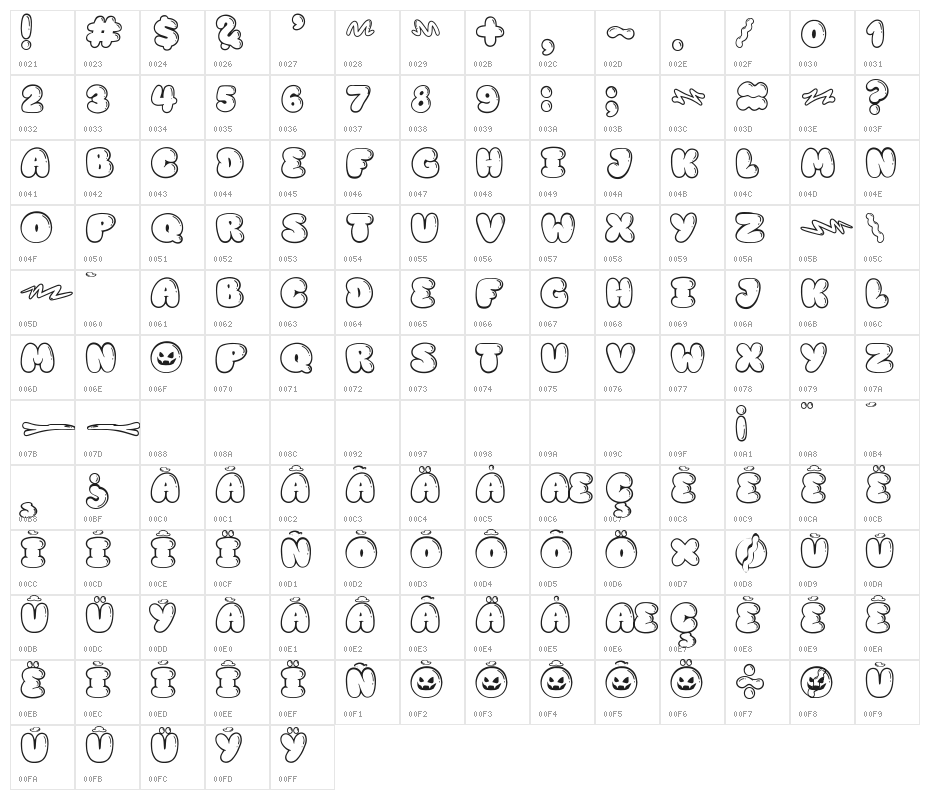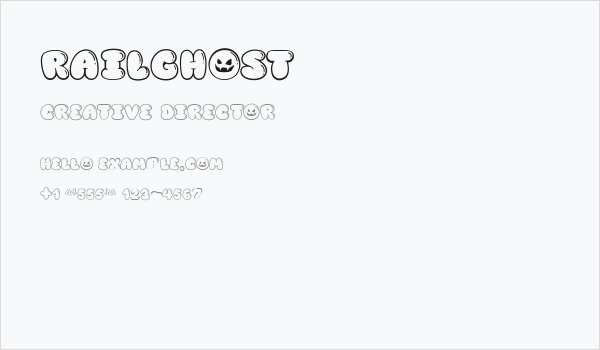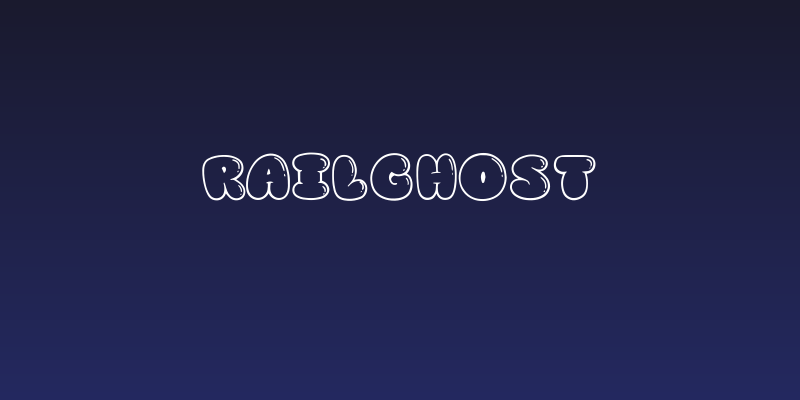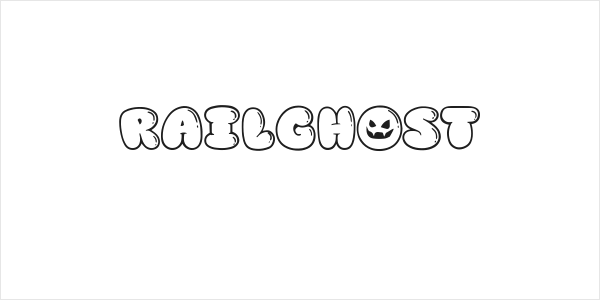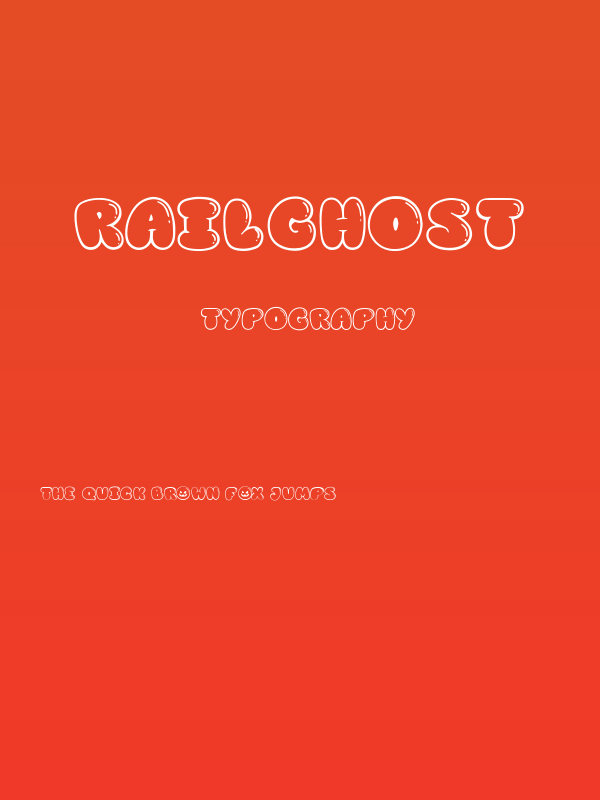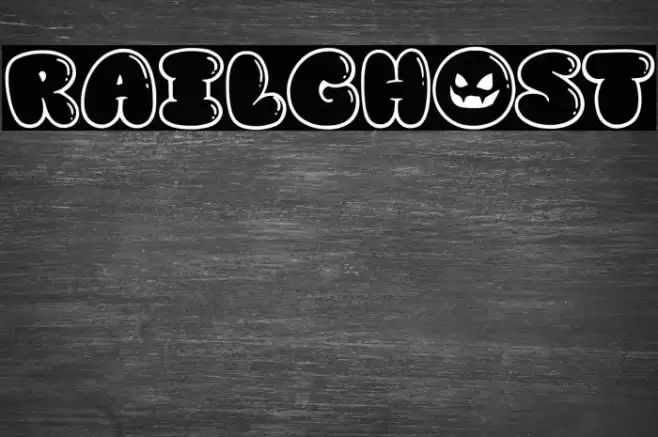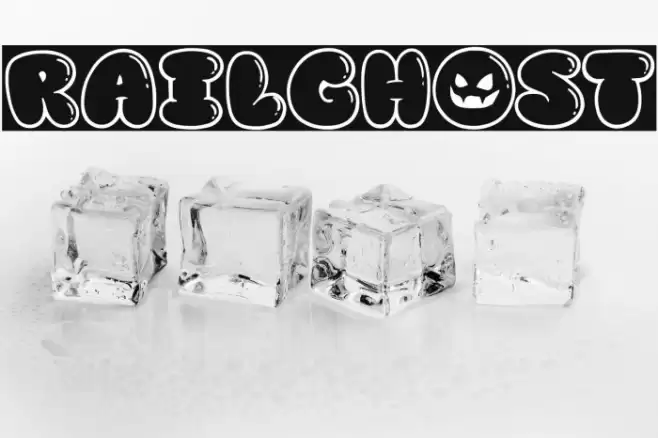
Railghost Font
Railghost Description
This playful and whimsical font features rounded, bubble-like characters with a slightly spooky twist. Each letter is outlined with a bold, black stroke, giving it a cartoonish appearance. The interior of the letters is white, with occasional small cutouts that add to its quirky charm. The font includes both uppercase and lowercase letters, numbers, and a variety of special characters, all maintaining the same bubbly and fun aesthetic. Its unique style makes it stand out, perfect for projects that require a touch of humor or a Halloween theme.
| Proposed Projects | Ideal for Halloween-themed designs, children's books, party invitations, or any project needing a fun and quirky touch. |